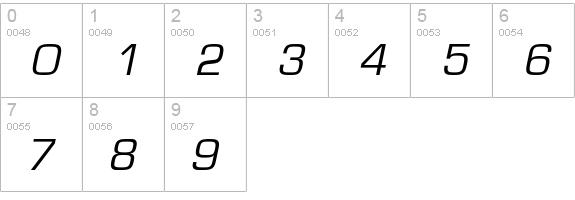
Palindrome SSi Italic is a distinctive, italic variant in the Palindrome typeface family \xE2\x80\x94 well suited to design and typography projects.
Introducing Palindrome SSi Italic font, a mesmerizing typeface that effortlessly blends elegance with modernity. This stunning font captivates the eye with its graceful curves and strikingly unique design, making it the perfect choice for those seeking a touch of sophistication in their projects. Palindrome SSi Italic font radiates an air of timeless beauty, combining sleek and slender letterforms with a subtle italic slant that adds a touch of flair. Each character is meticulously crafted to ensure a seamless flow, creating a harmonious rhythm that enhances readability and legibility. With its versatility and charm, Palindrome SSi Italic font is suitable for a wide range of creative projects. Whether you're designing a sophisticated logo, an elegant invitation, or a captivating headline, this font will effortlessly elevate your work to new heights. But the best part? Palindrome SSi Italic font is completely free! Yes, you heard it right. This extraordinary font is freely available to download at FontsMarket.com, where you can effortlessly enhance your design projects without breaking the bank. So why wait? Unlock the potential of your designs with Palindrome SSi Italic font. Embrace the beauty of its carefully crafted letterforms, its timeless elegance, and its unparalleled versatility. Download it for free today at FontsMarket.com and let your creativity soar to new dimensions.